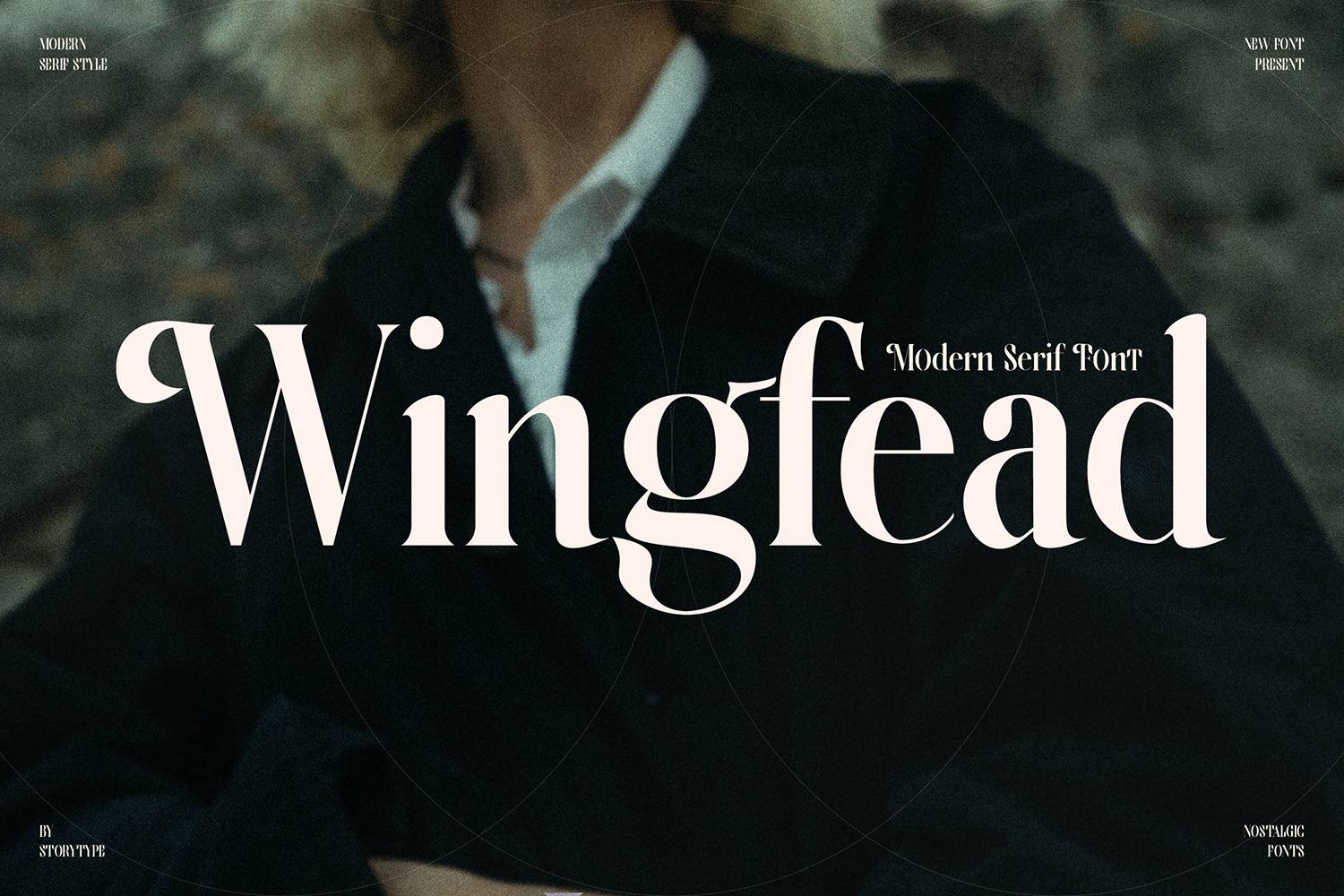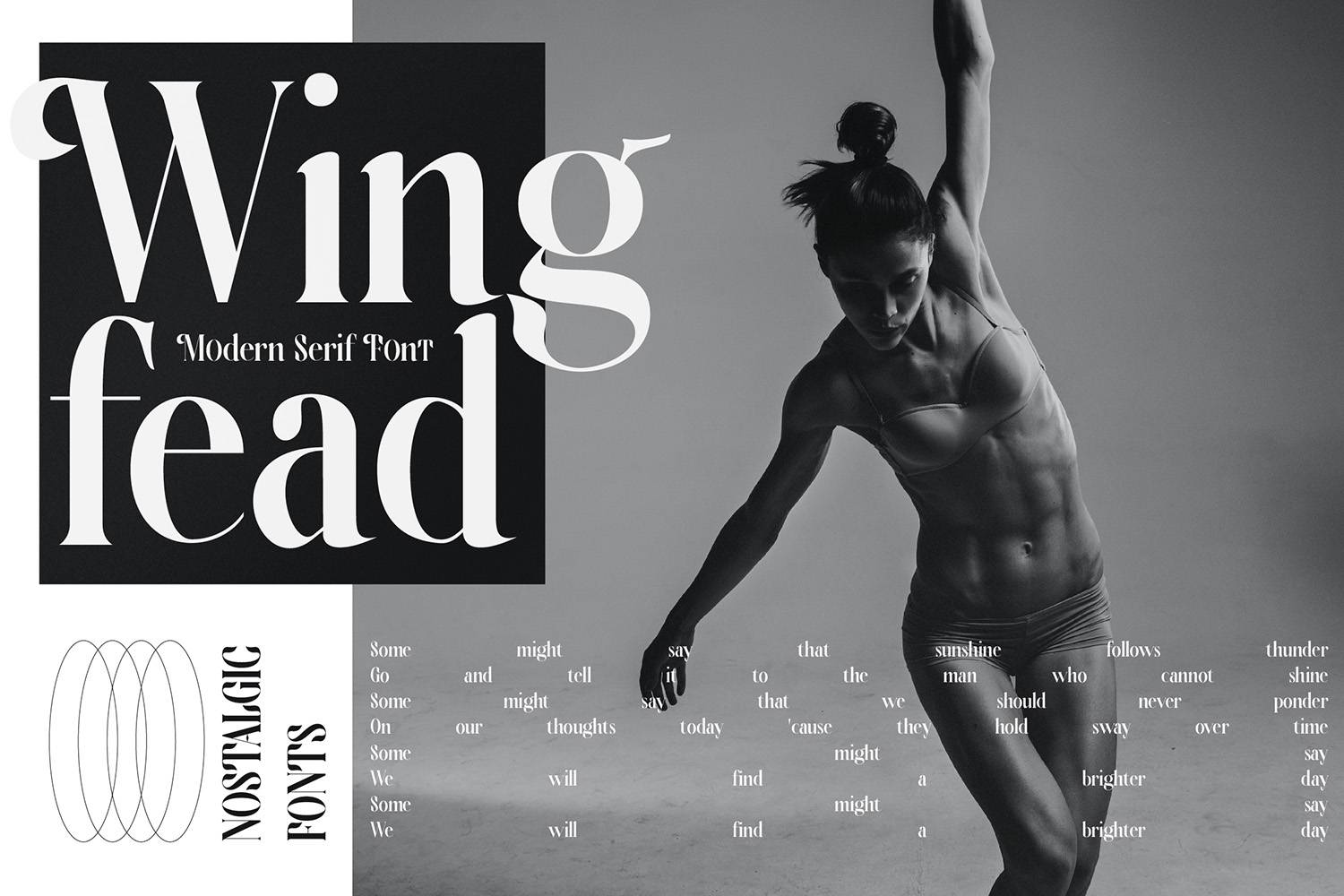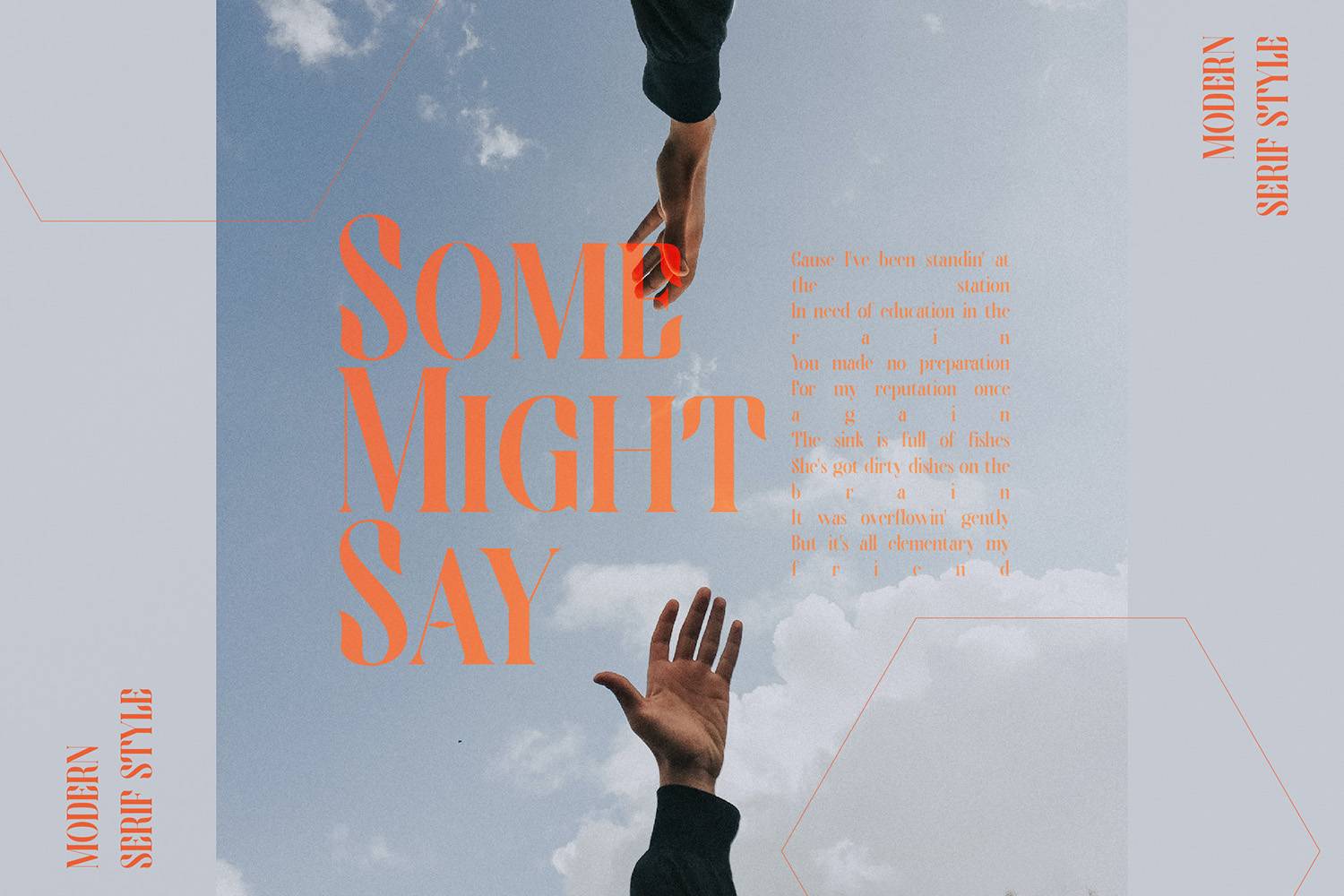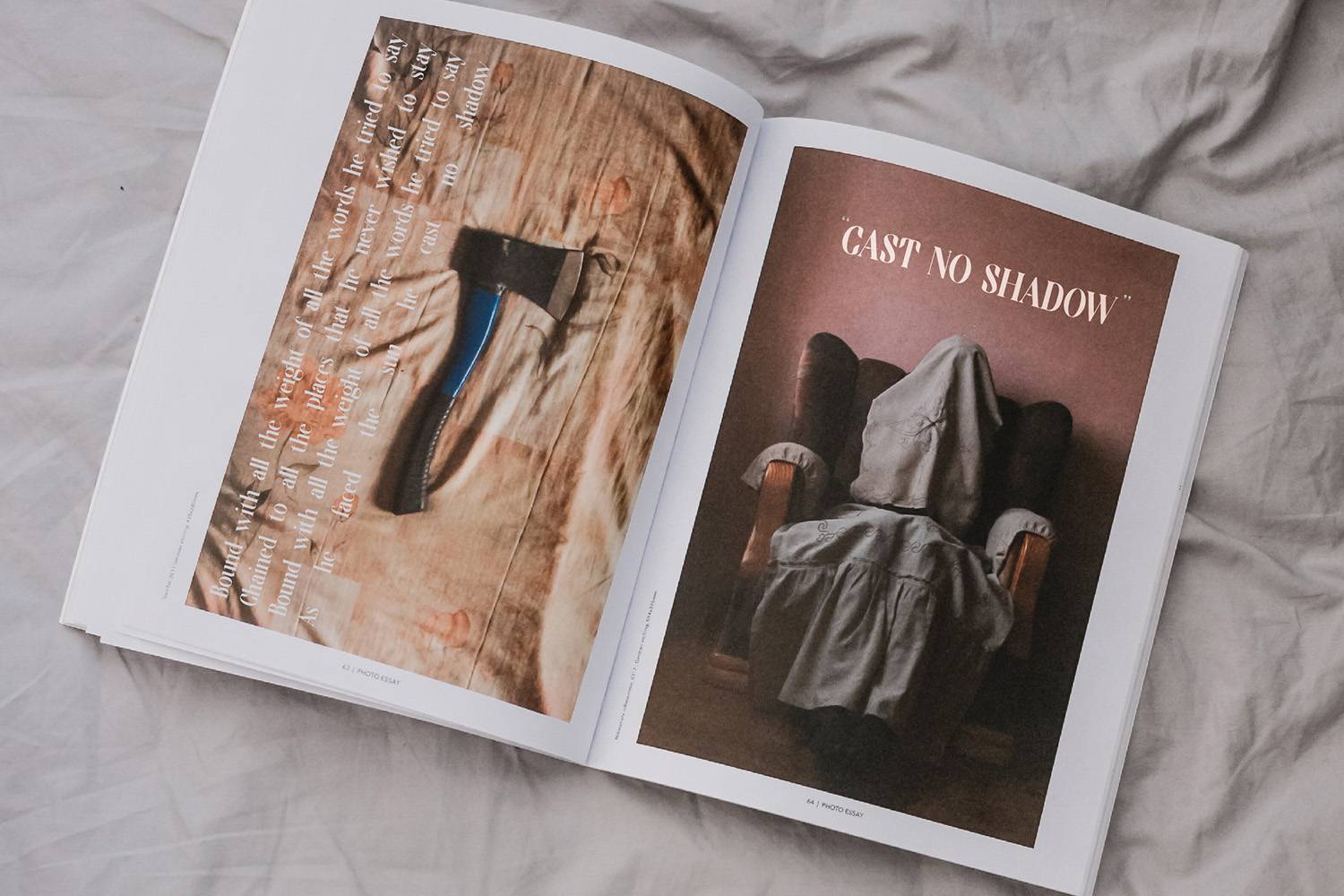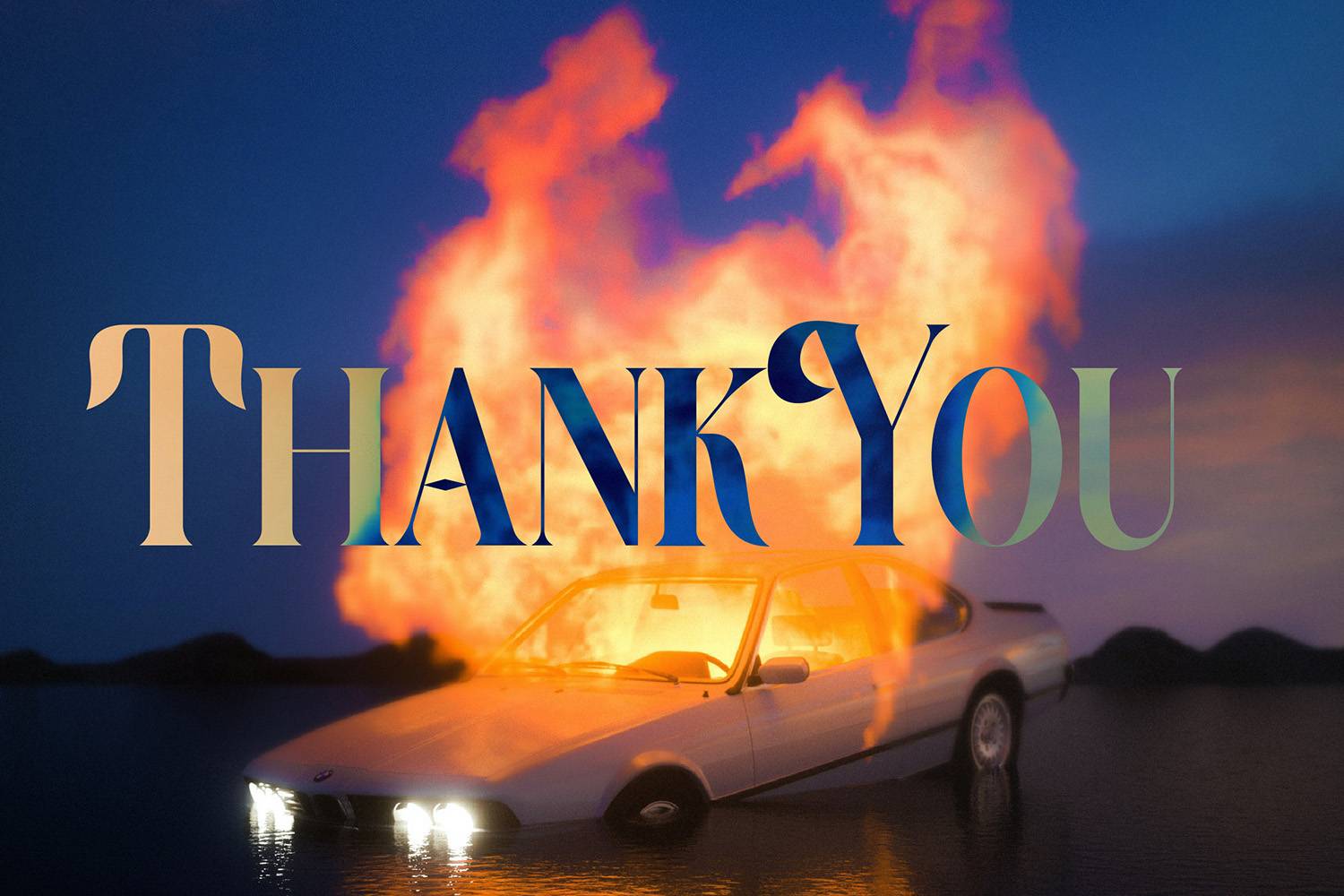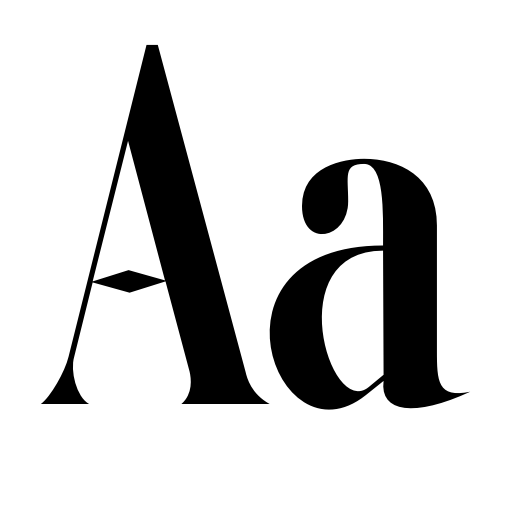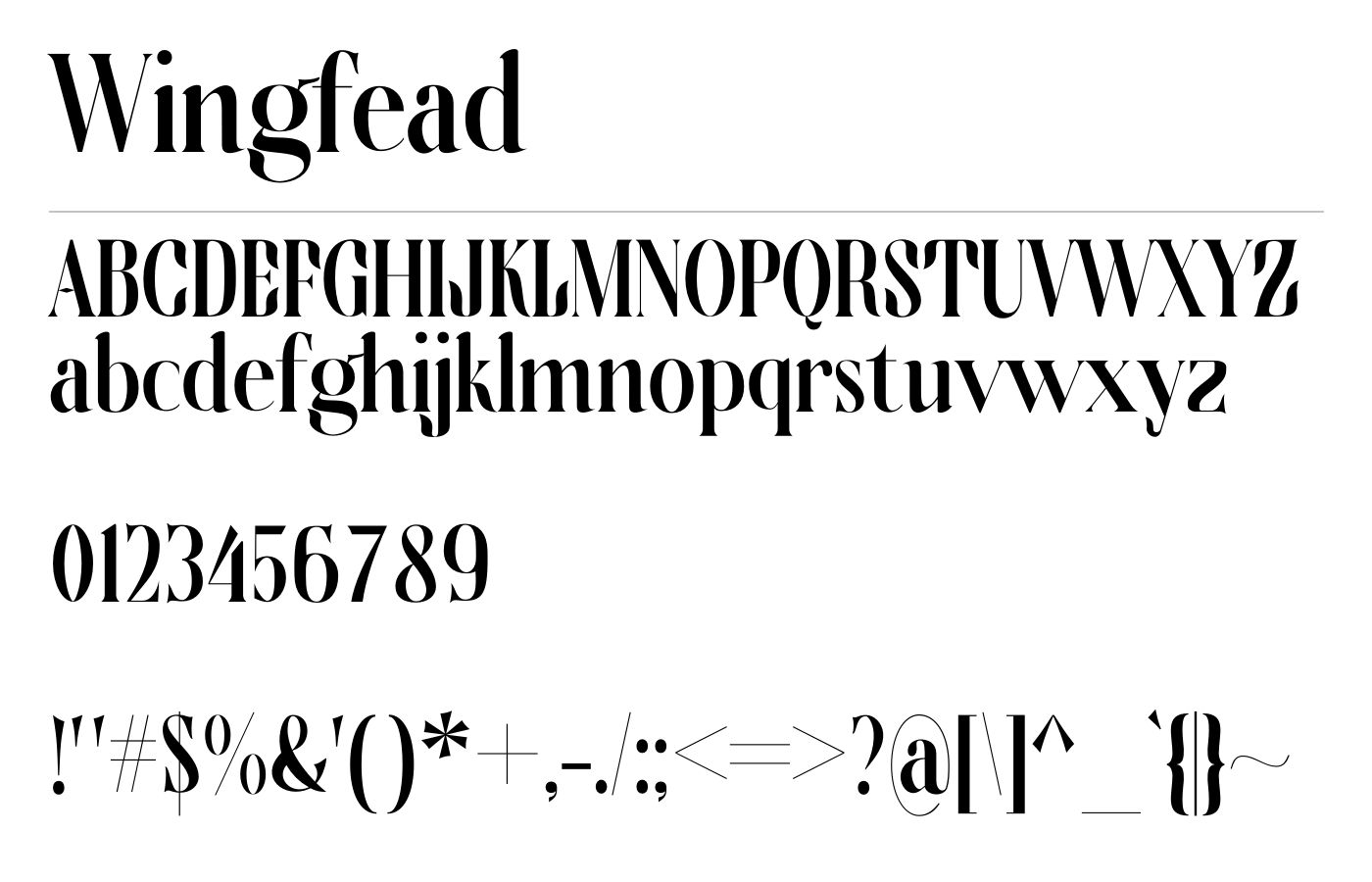
Wingfead is a bold serif typeface with high contrast between thick and thin strokes, featuring elegant bracketed serifs and distinctive, stylized letterforms that add a touch of sophistication. Its tall x-height and narrow width make it perfect for impactful headlines, luxury branding, and editorial use where refined yet strong visual presence is desired. This font blends modern flair with classic influences, ideal for fashion, magazine covers, or high-end packaging that needs to convey elegance and authority.
Wingfead Typeface Font
About Wingfead Typeface Font